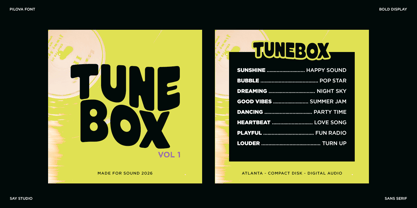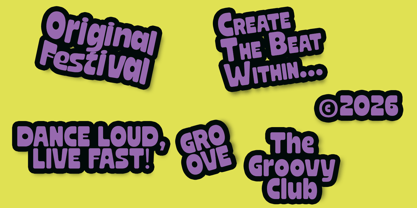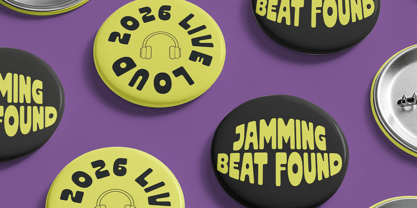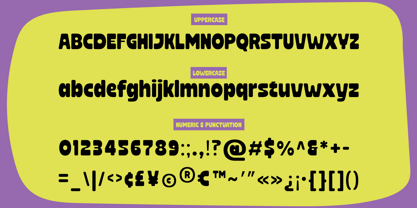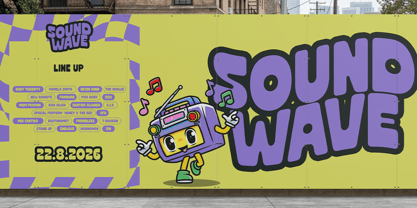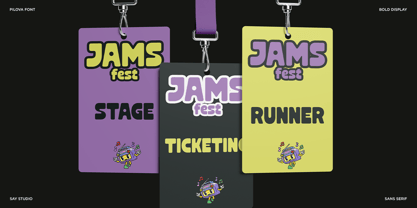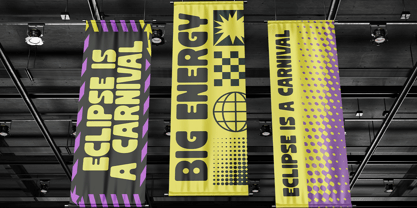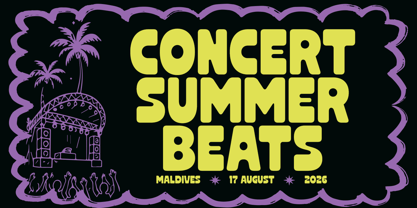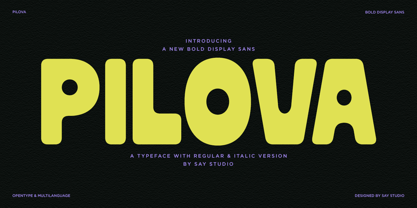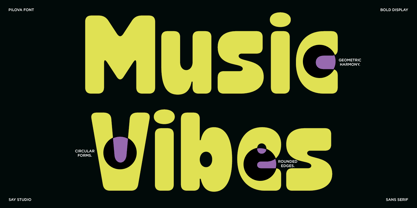
Pilova
Die Schriftfamilie Pilova wurde von Mussyayin entworfen und von Say Studio veröffentlicht. Pilova enthält 2 Stile und Familienpaketoptionen. Mehr über diese Familie
Pilova is a bold groovy display font with chunky, rounded letterforms and a playful retro-inspired character. Designed to create strong visual impact, Pilova combines bold shapes with a fun and energetic style, making it perfect for expressive headlines and creative designs.
Perfect for posters, music events, festival graphics, branding, logos, apparel, packaging, album covers, advertising, social media, stickers, and merchandise. Pilova adds a bold, playful, and stylish touch to any creative project.
• Regular and Italic
• Uppercase and Lowercase
• Number, Symbol, and Punctuation
• Multilingual Support